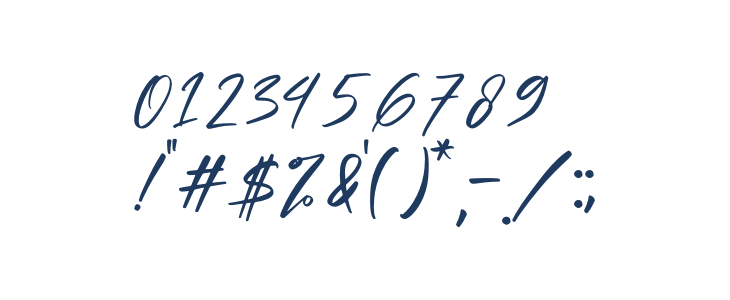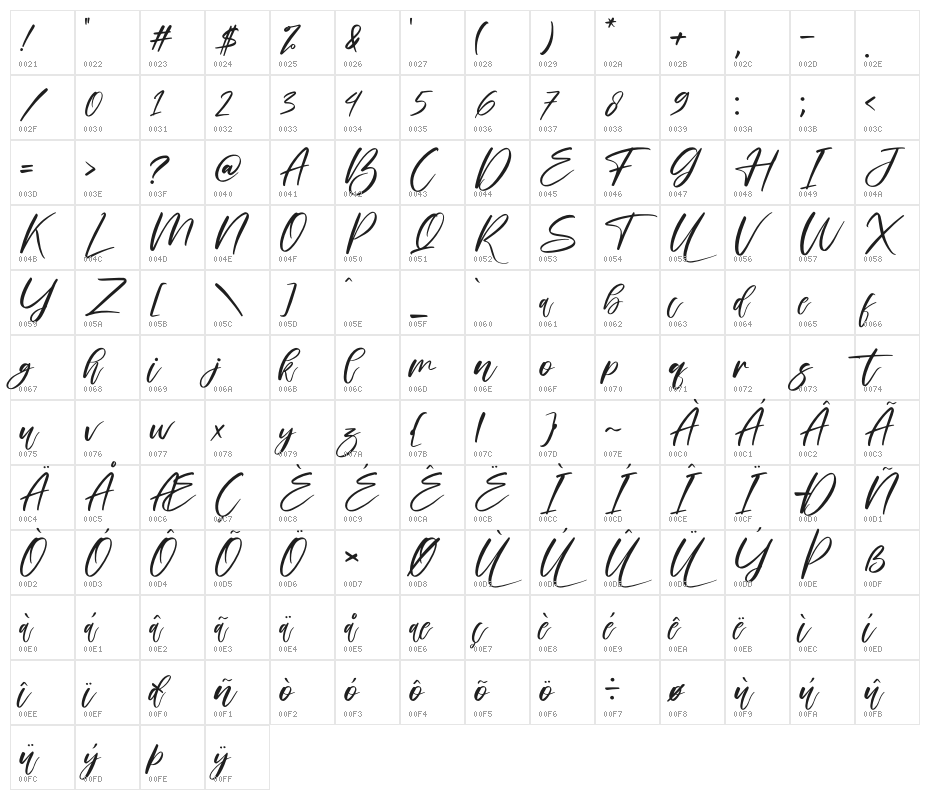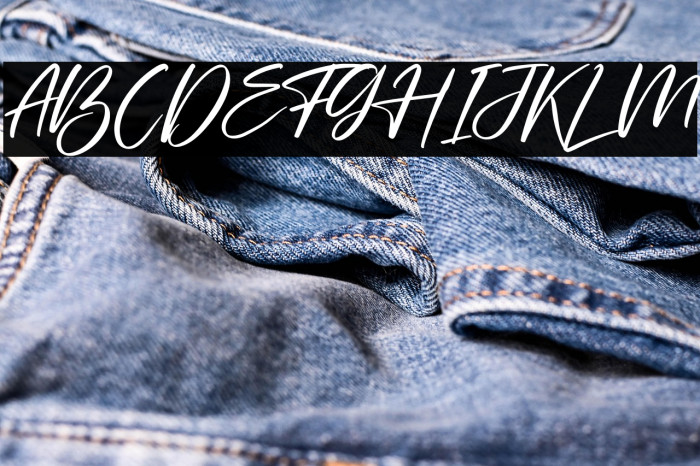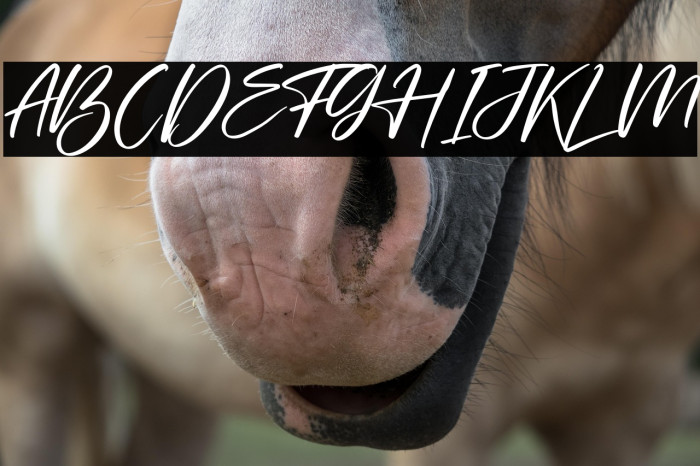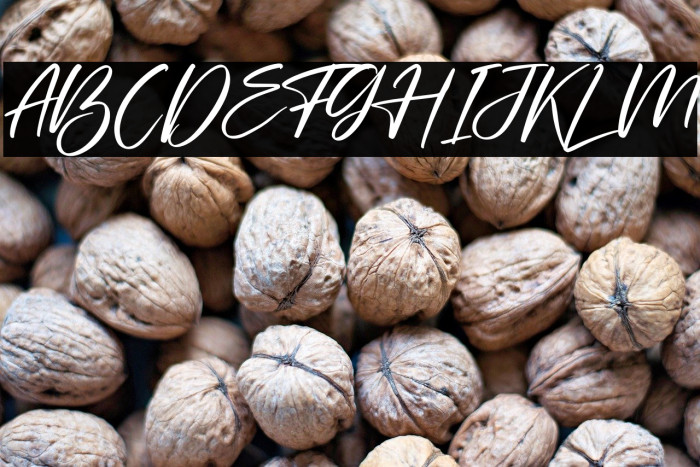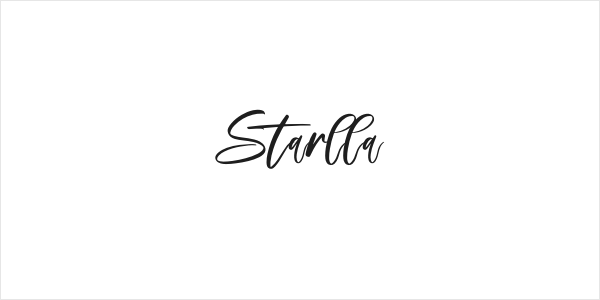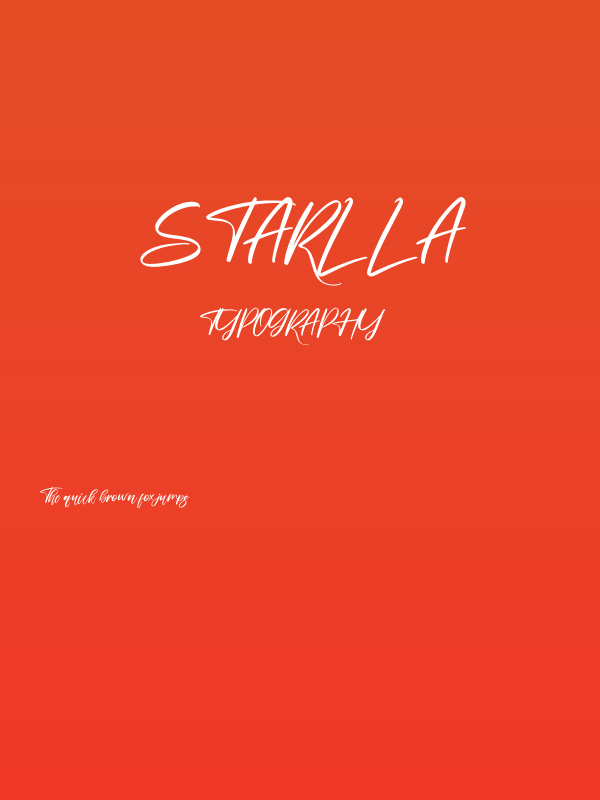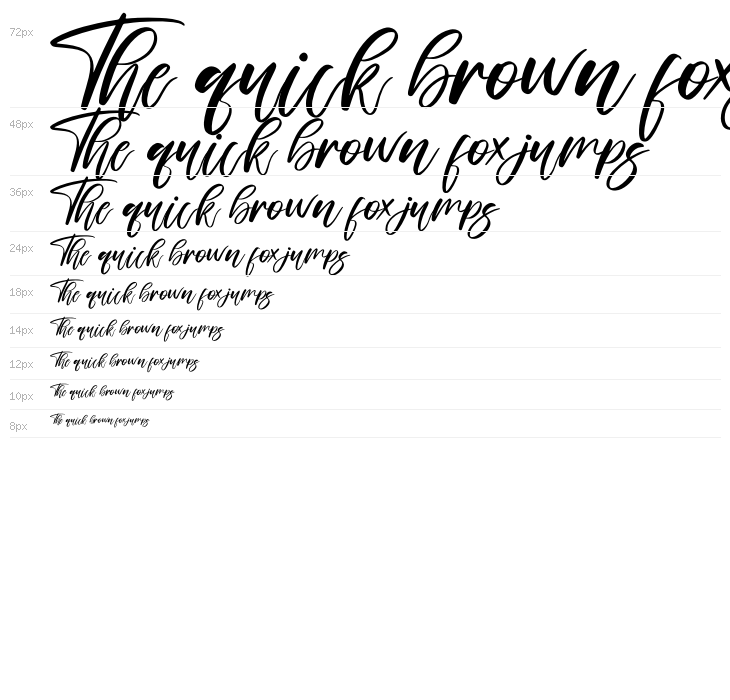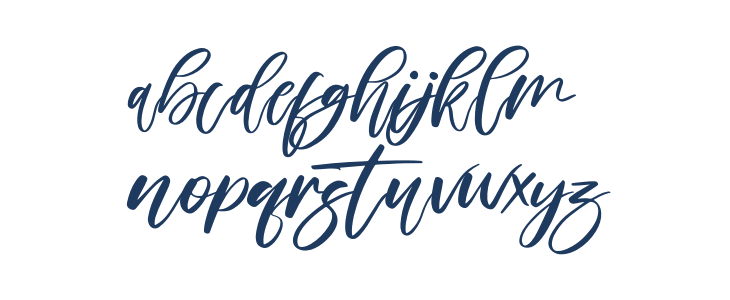
Starlla Font
Starlla Description
This font exudes a lively and expressive character with its fluid, cursive style. The letters are crafted with a natural, handwritten appearance, featuring smooth, flowing lines and elegant curves. The uppercase letters are bold and dynamic, while the lowercase letters maintain a consistent, graceful flow. The numbers and special characters are designed to complement the overall aesthetic, maintaining the same fluidity and style. This font is perfect for projects that require a personal touch, such as invitations, greeting cards, or branding materials that aim to convey elegance and creativity.
| Use Case | Logos, Headlines, Invitations |
| Proposed Projects | Ideal for invitations, greeting cards, branding, and creative projects. |